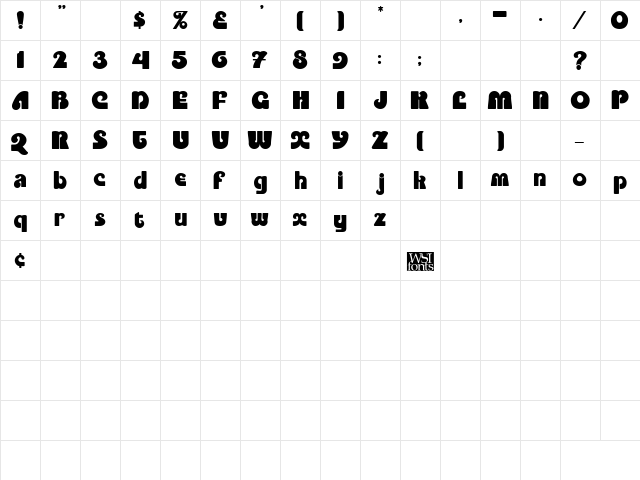
PookyDisplay Regular
Design Context for PookyDisplay Typeface
PookyDisplay brings ornamental detail and strong personality to headlines and identities, where visual impact matters more than quiet functionality.
Font Pairing: Pair with a clean neutral sans-serif for body copy to let PookyDisplay's character lead without overwhelming the composition.
Pro Tip: Treat PookyDisplay as the centrepiece of your typographic hierarchy. One strong heading set in a decorative face can carry an entire layout.